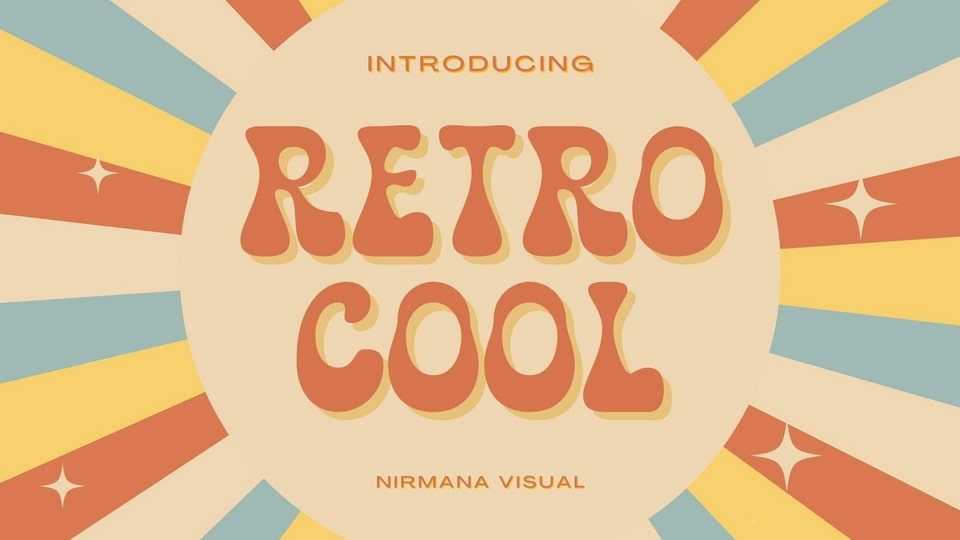
Download Retro Cool font, a groovy display typeface inspired by the 70s – 80s era. Retro Cool font offers beautiful typographic harmony for a diversity of design projects such as logos, branding, social media posts, advertisements and more.